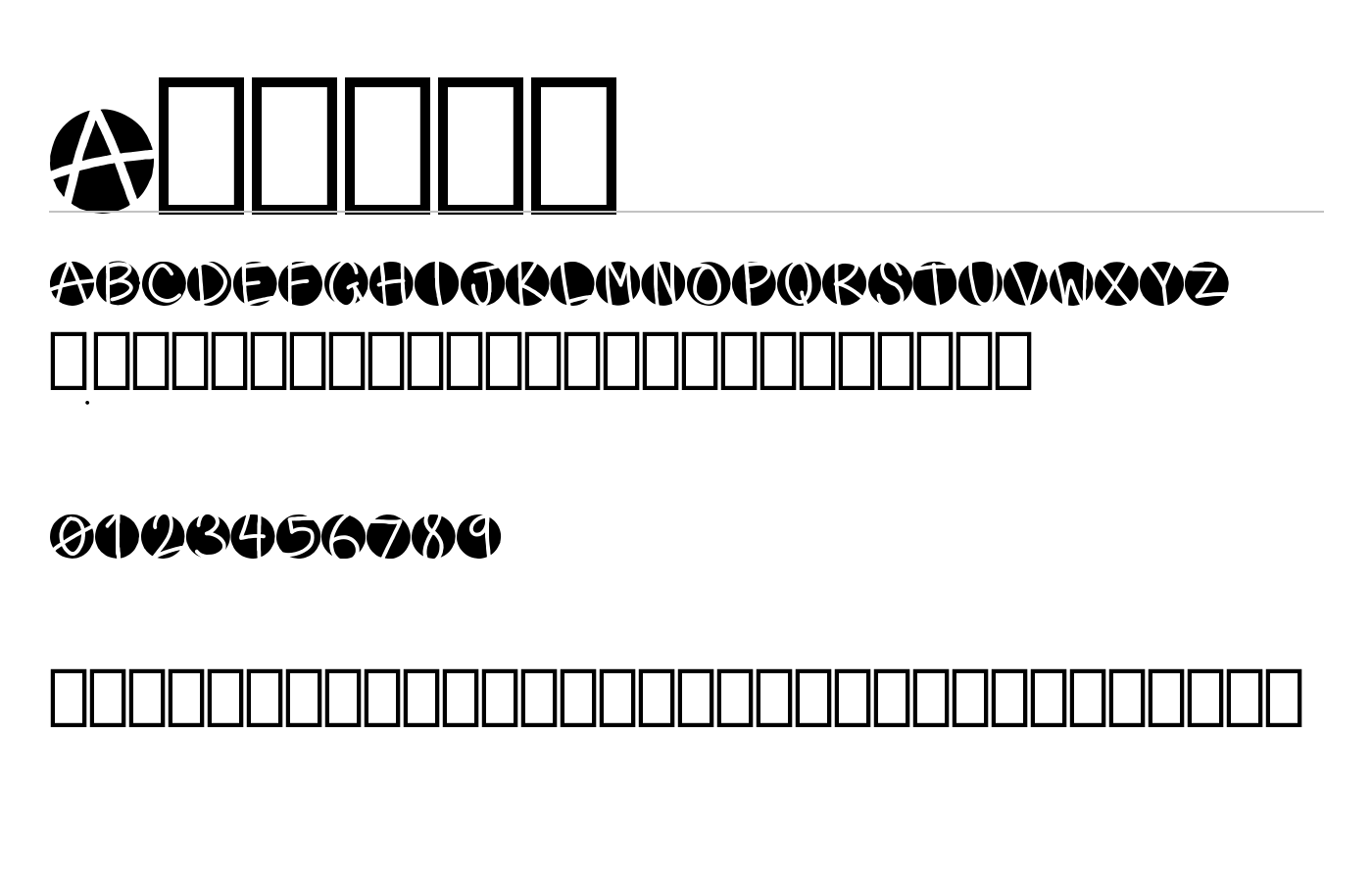
Alkine is a bold, decorative display font characterized by its unique stencil-style letterforms enclosed within solid circular shapes, creating a strong, graphic impact. Its playful yet modern design makes it ideal for eye-catching headlines, logos, and creative branding projects where a distinctive, contemporary look is desired. This font works best in contexts that need a memorable, artistic flair rather than for body text or extensive reading.
Alkine Font
About Alkine Font